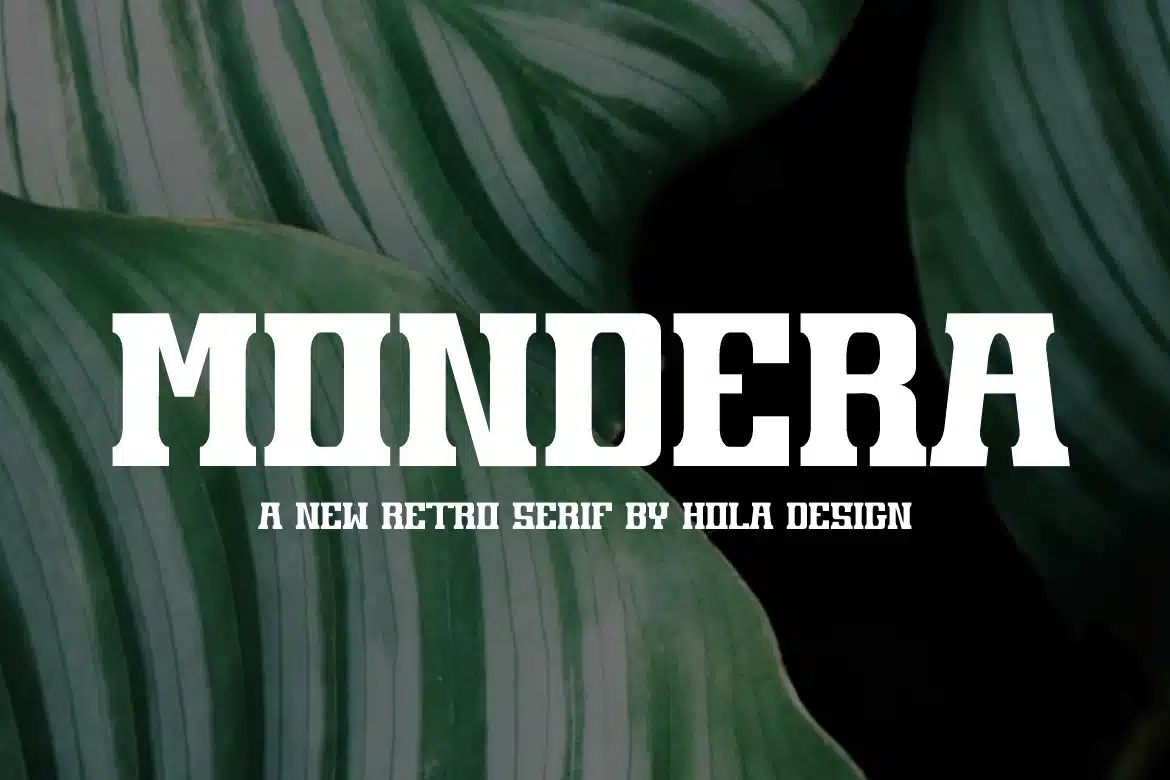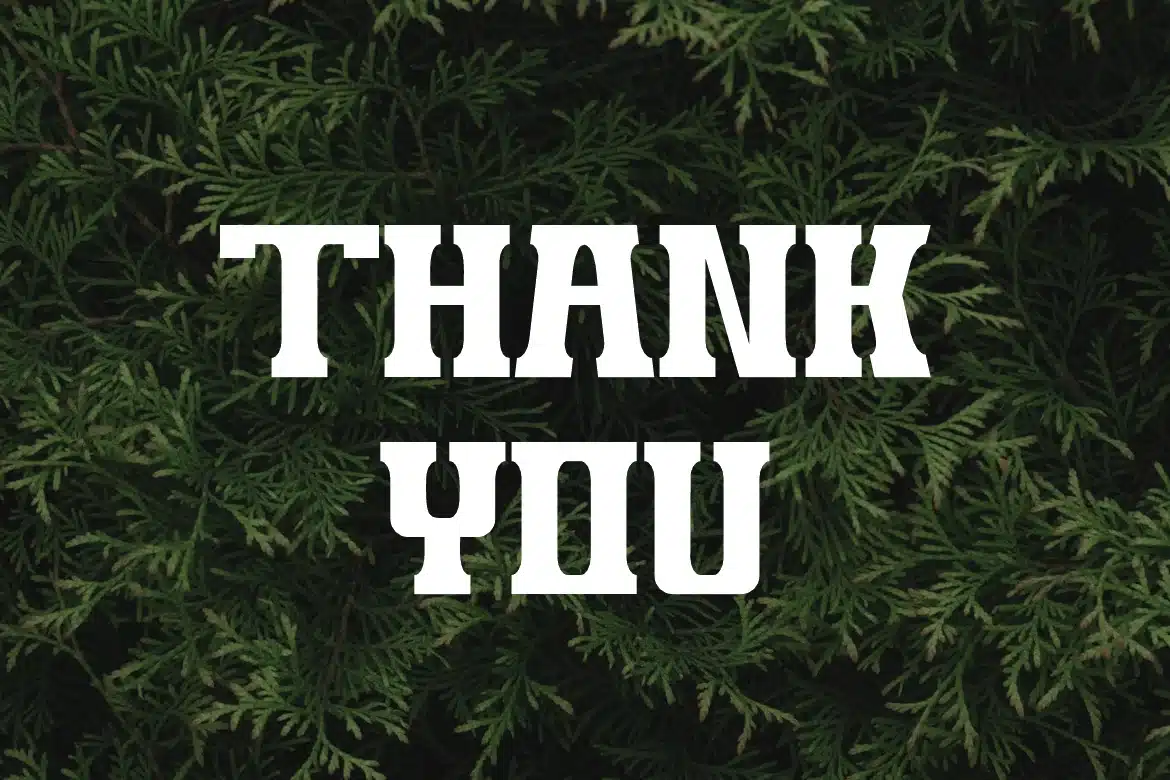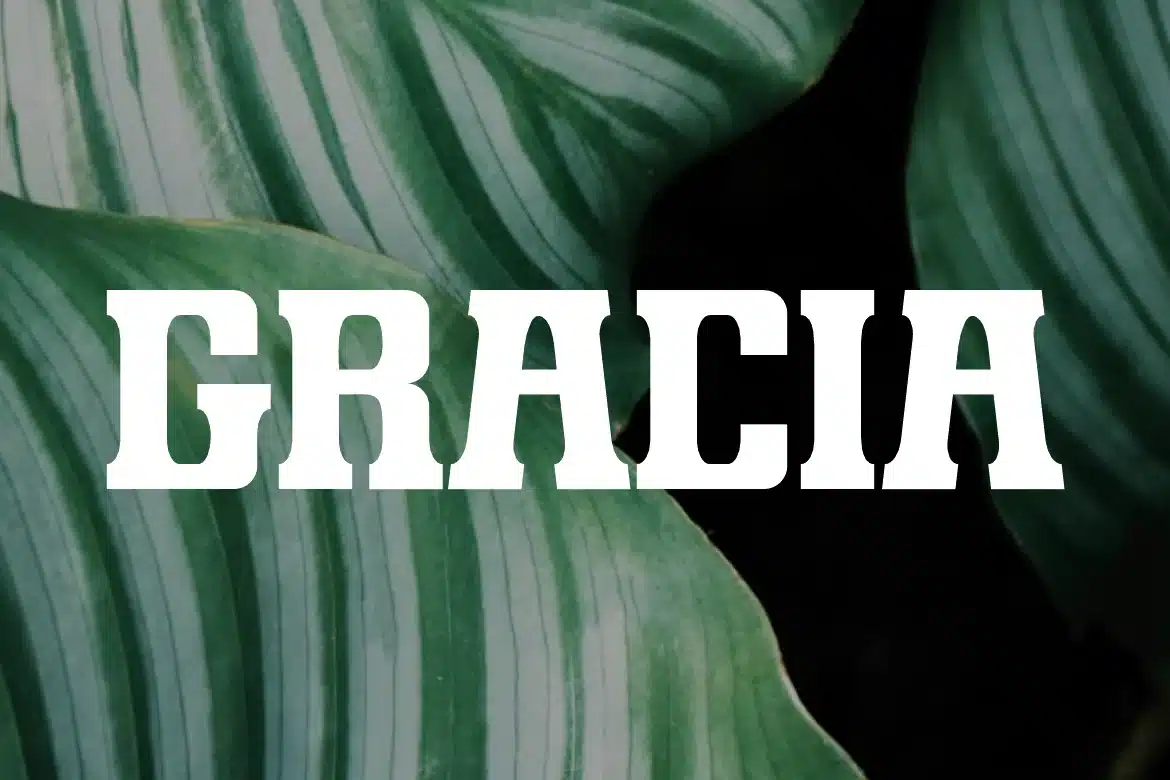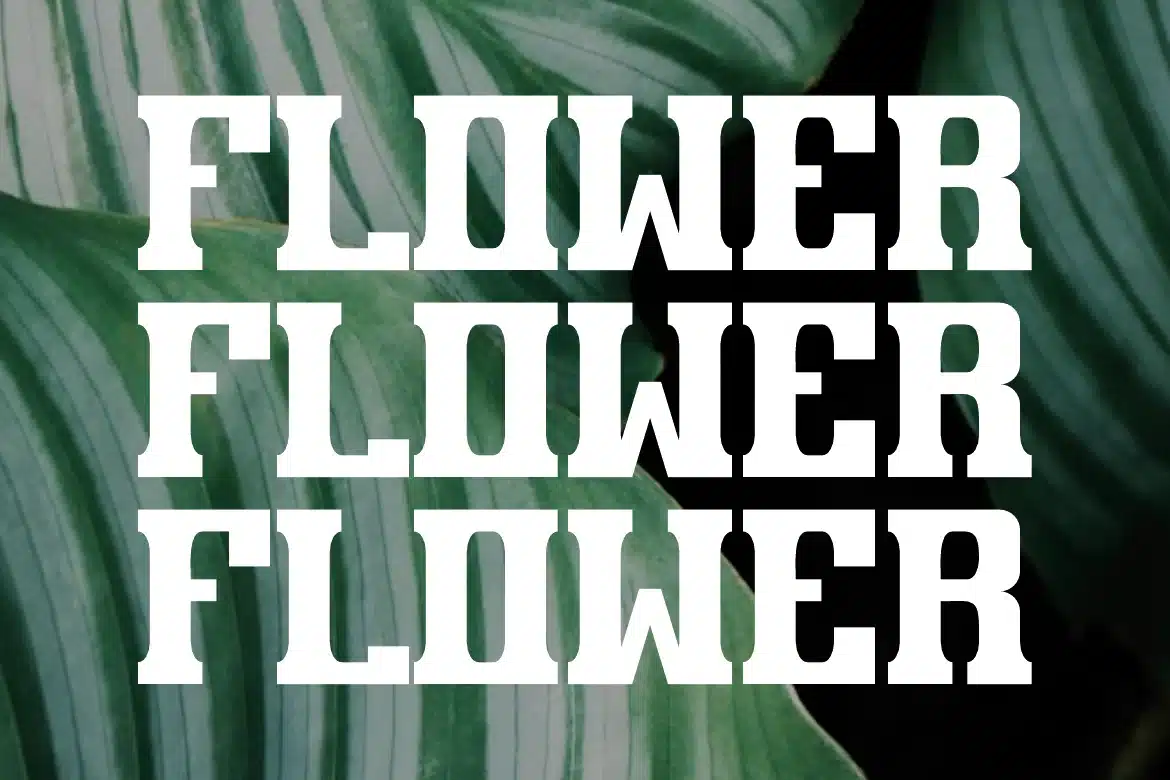
Mondera – Retro Serif Font
Mondera - Retro Serif Font Font is unique . Ready to use for your design like labeling, movie sceen, poster, movie title, gigs, album covers, logos, and much more.